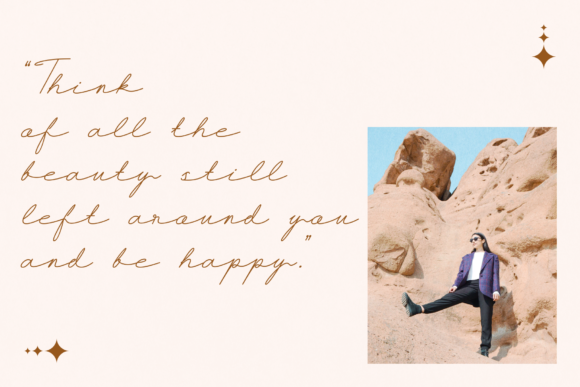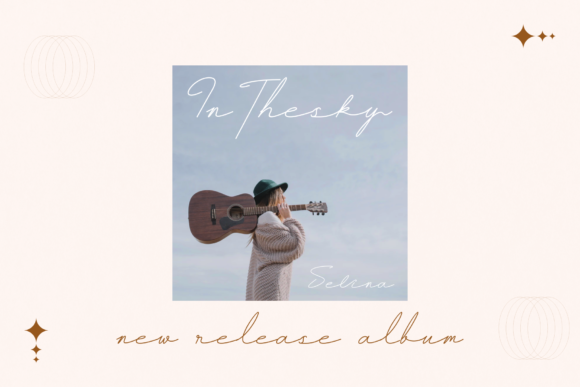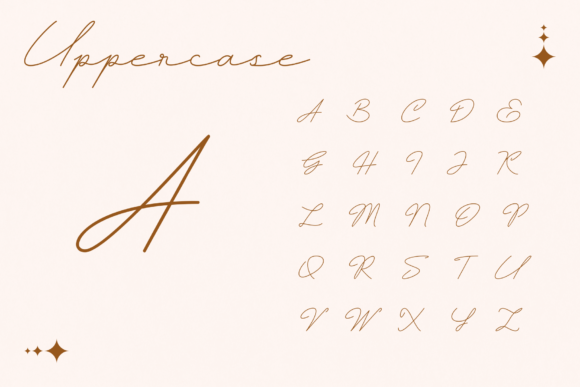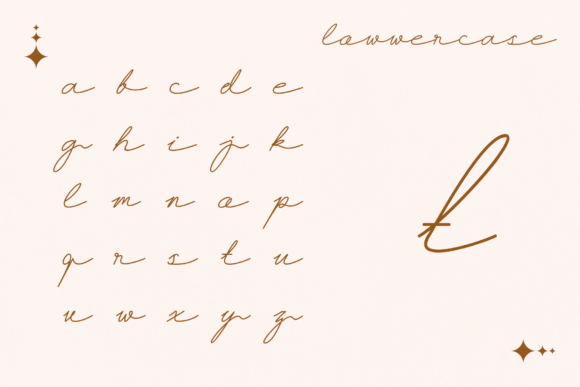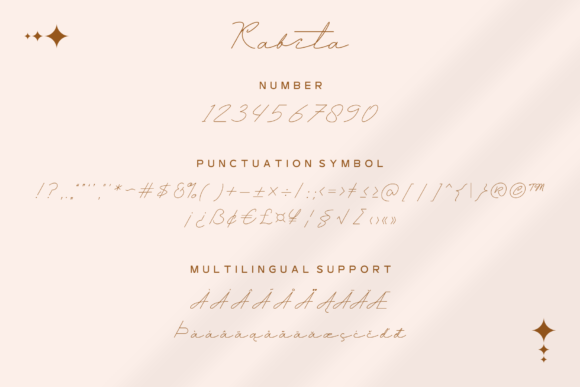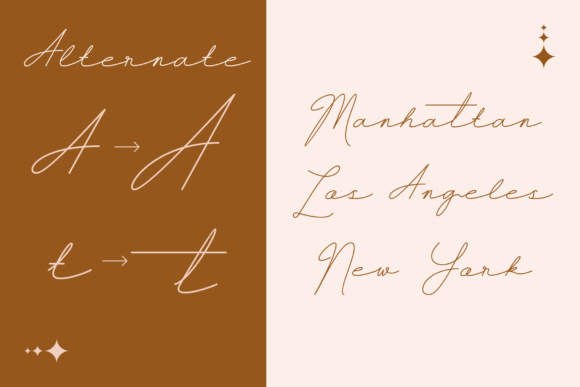
Introduction to Kabita Font
Have you ever found yourself stuck on a design project, struggling to find the perfect font to bring your creative vision to life? As designers, we’ve all been there – scrolling through font libraries, searching for that elusive combination of style and functionality that elevates our work from good to great. For those moments of creative frustration, we’re excited to introduce you to the Kabita Font, a versatile and modern script that’s about to become your new go-to design resource.
With its beautiful and well-balanced characters, Kabita Font is the perfect choice for designers looking to add a touch of sophistication to their high-quality creative projects. Whether you’re working on a logo, a website, or a marketing campaign, this font’s thin and elegant design is sure to impress.
Kabita Font
- High-quality design resource with a unique, elegant script style suitable for creative projects.
- Perfect for use in wedding invitations, quotes, and other creative projects that require a touch of elegance and sophistication.
Honest Review: Kabita Font
I recently stumbled upon the Kabita Font, and I must say it’s a great addition to any designer’s toolkit. As a design resource, it offers a unique and elegant look that can elevate any creative project. One of the standout features is its ability to work seamlessly with a transparent background, making it perfect for designs that require a clean and minimalist aesthetic.
- ✨ High quality: The Kabita Font is designed with precision and attention to detail, resulting in a truly professional-looking font.
- ✨ Versatile: The font is suitable for a wide range of creative projects, from branding and logos to digital art and print materials.
However, I do have to mention a few limitations. ⚠️ The font may not be suitable for very small text sizes, as it can become difficult to read. Additionally, it may not be as versatile in certain languages, which could be a limitation for designers working with multilingual clients.
Overall, I’m impressed with the Kabita Font, and I would definitely recommend it to designers looking for a high-quality, free font to add to their design arsenal. It’s a great resource to have in your toolkit, and I’m excited to see how it can help take my designs to the next level.
Tips for Getting the Most Out of Kabita Font
Experiment with different font sizes, colors, and styles to create a unique design. Use the font with a transparent background to add depth and visual interest to your project. Consider combining the Kabita Font with other design resources, such as images and graphics, to create a cohesive and engaging design.
The Kabita Font is ideal for creative projects, such as graphic design, digital art, and branding. It’s also suitable for presentations, documents, and websites that require a clean and professional look. With its high-quality design and transparent background, the Kabita Font is a valuable design resource for any creative project.